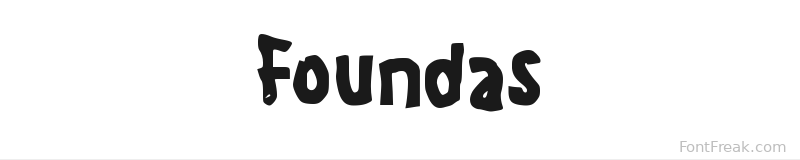
Foundas
About Foundas
The Foundas font, designed by Wahyu Eka Prasetya, is a distinctive display typeface that captures attention with its playful and unique character. This font falls into the decorative category, making it an ideal choice for designs that aim to stand out. The visual characteristics of Foundas include a bold stroke weight and a somewhat irregular baseline, which contribute to its quirky charm. The letters exhibit a moderate contrast, allowing for clear readability while maintaining an artistic flair. The spacing is thoughtfully designed, ensuring that each character is distinct yet cohesive within words.
Foundas is particularly well-suited for a variety of creative applications. It shines in contexts like wedding invitations, where its whimsical nature adds a touch of personality. Additionally, it works wonderfully for movie posters, providing a bold statement that can capture the essence of the film. Restaurant menus can benefit from Foundas as well, adding an inviting and casual feel that resonates with diners. For content creators, this font is perfect for social media graphics, ensuring that posts grab attention and convey a fun message.
What makes the Foundas font stand out is its ability to blend creativity with functionality. Its decorative elements, combined with its legibility, make it a versatile choice for anyone looking to infuse personality into their designs. For those seeking a unique typeface, the Foundas font free download is an excellent option to consider.